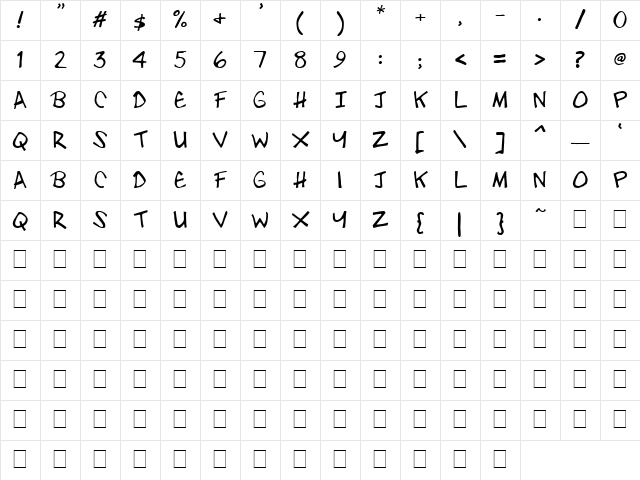
Complete Zebedebedoo Normal glyph index. Displaying only characters natively supported by Zebedebedoo Normal font.
Zebedebedoo is a composed and adaptable typeface that performs quietly and consistently across a wide range of design contexts.